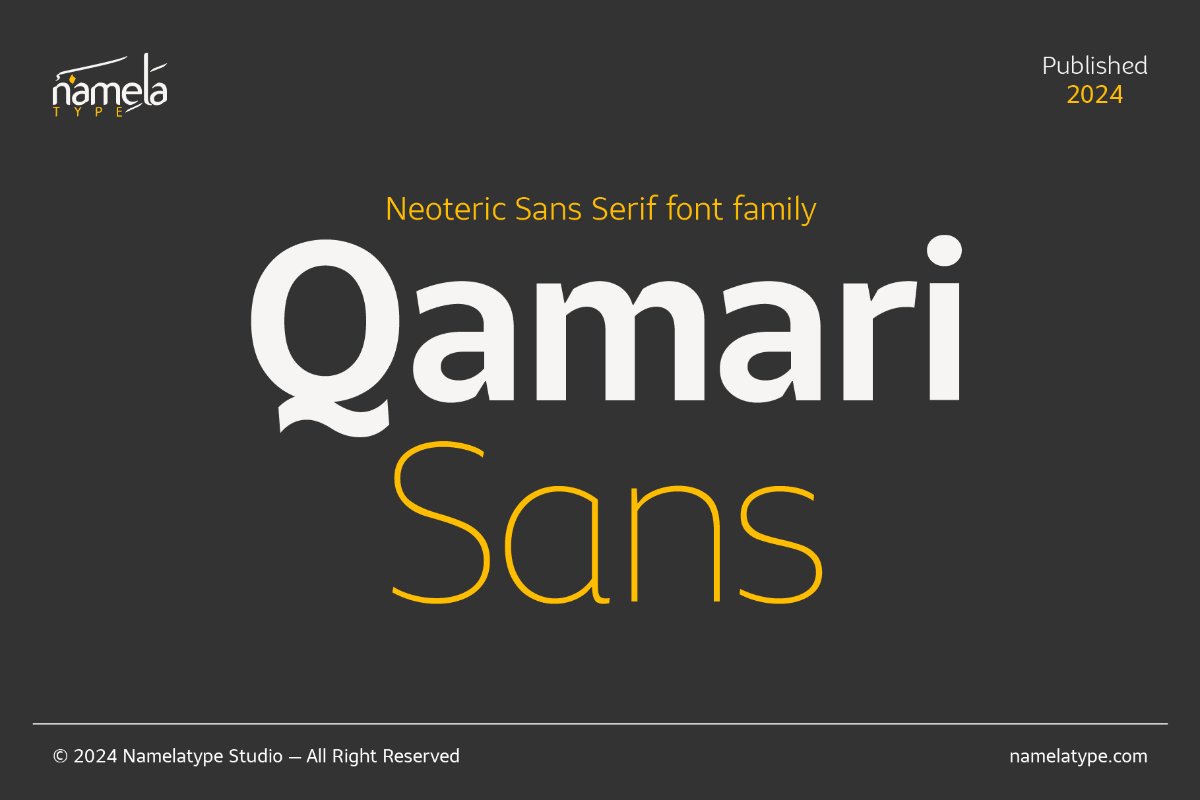
Qamari Sans Oblique
Qamari Sans Font - A Modern Humanist Sans Typeface for Editorial, Apps Great typography often appears effortless—but behind that simplicity lies a careful balance of structure, proportion, and clarity. Qamari Sans is a modern sans serif typeface that embodies these principles through a refined Latin design built for contemporary communication. Originally developed by Namelatype, Qamari Sans Modern Humanist Font reflects a philosophy centered on clarity and balance. In its Latin form, it stands